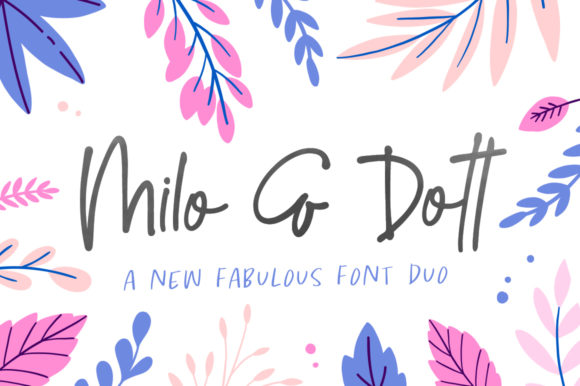
Adorn your designs with Milo & Dott, a dynamic duo of fonts crafted by Salt and Pepper Fonts. As a display font family, Milo & Dott exudes elegance and modernity, harmonizing perfectly to elevate your creative vision.
Milo, the script font, flows with an enchanting rhythm, reminiscent of a gentle melody. Its graceful curves and sweeping strokes capture the essence of artistry, adding a touch of sophistication to your designs. Whether you're crafting wedding invitations, branding materials, or social media graphics, Milo's presence commands attention.
Complementing Milo's elegance, Dott, the sans serif font, emanates a clean and contemporary aesthetic. Its crisp lines and geometric shapes provide a striking contrast, creating a visually captivating balance. This versatile font shines in headlines, logos, and web design, where its sharp edges demand attention and clarity.
Together, Milo & Dott form a harmonious alliance, like two halves of an inseparable whole. They seamlessly unite to create an eye-catching synergy that elevates your designs to new heights of creativity. With Milo & Dott as your artistic companions, you'll effortlessly transform your projects into captivating masterpieces.
Embrace the allure of Milo & Dott and unlock a world of design possibilities. Their versatility extends beyond the realm of tattoos, making them ideal for a myriad of creative endeavors. From branding and marketing to web design and social media, Milo & Dott will effortlessly elevate your projects to new heights of elegance and sophistication.